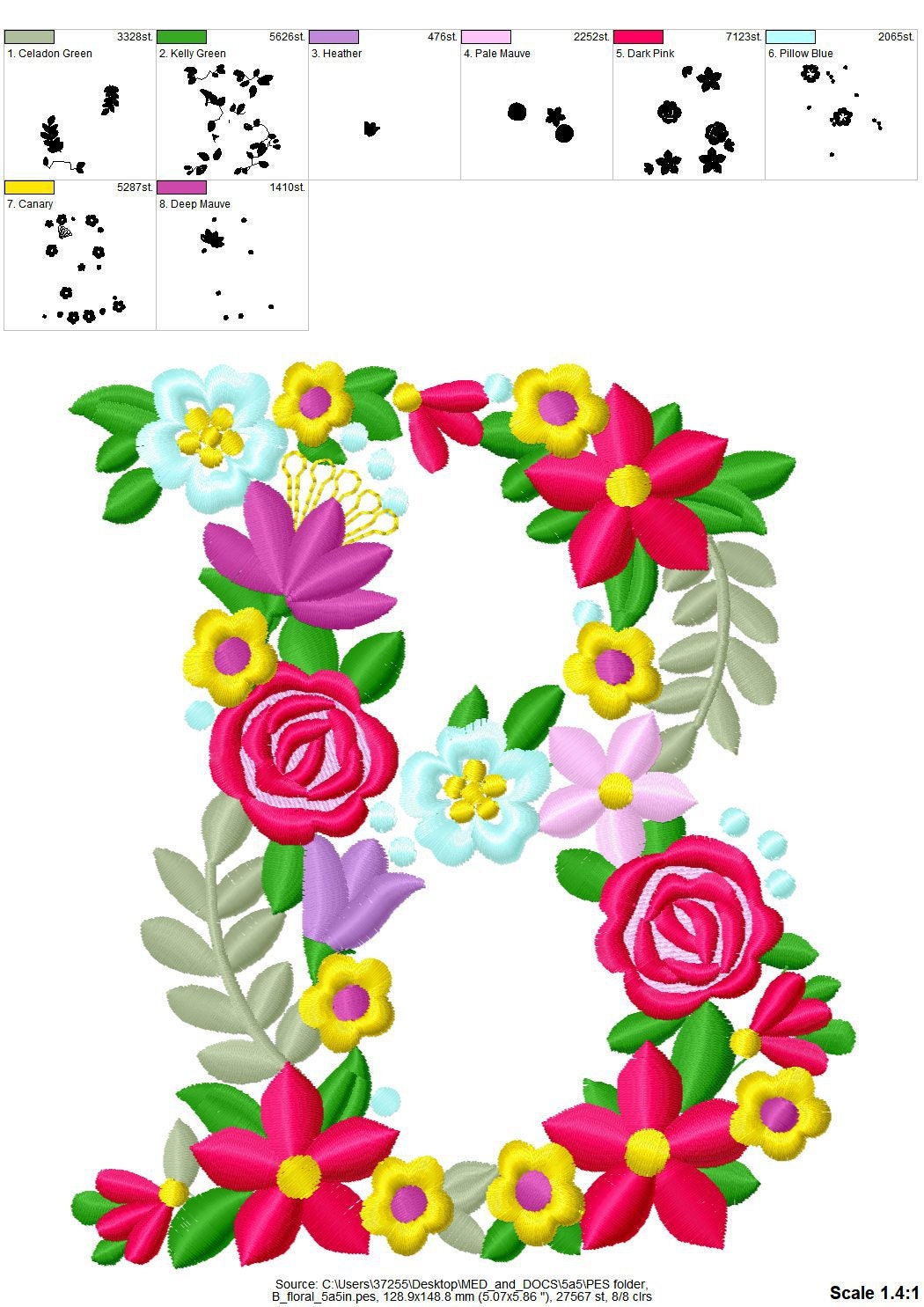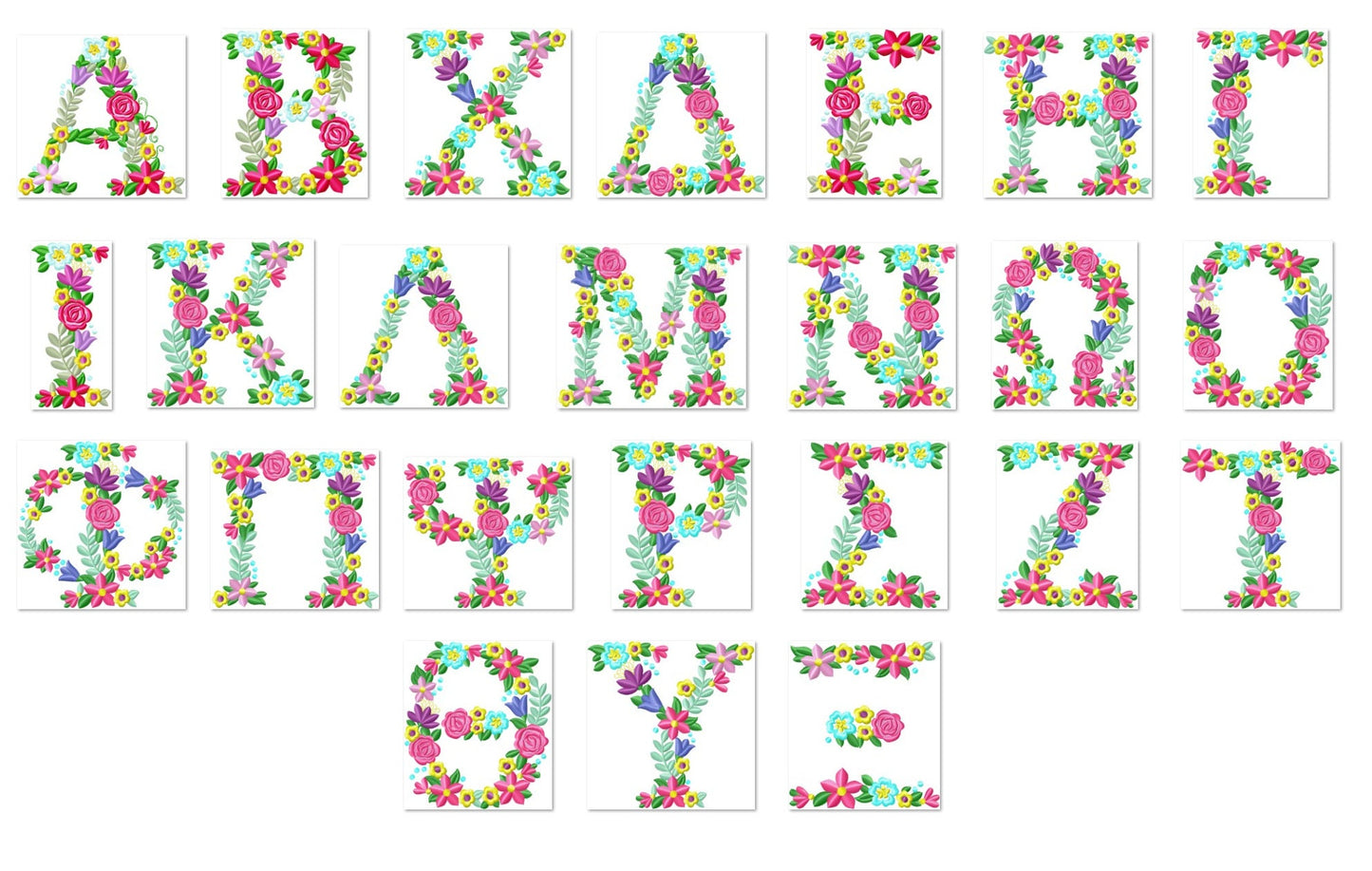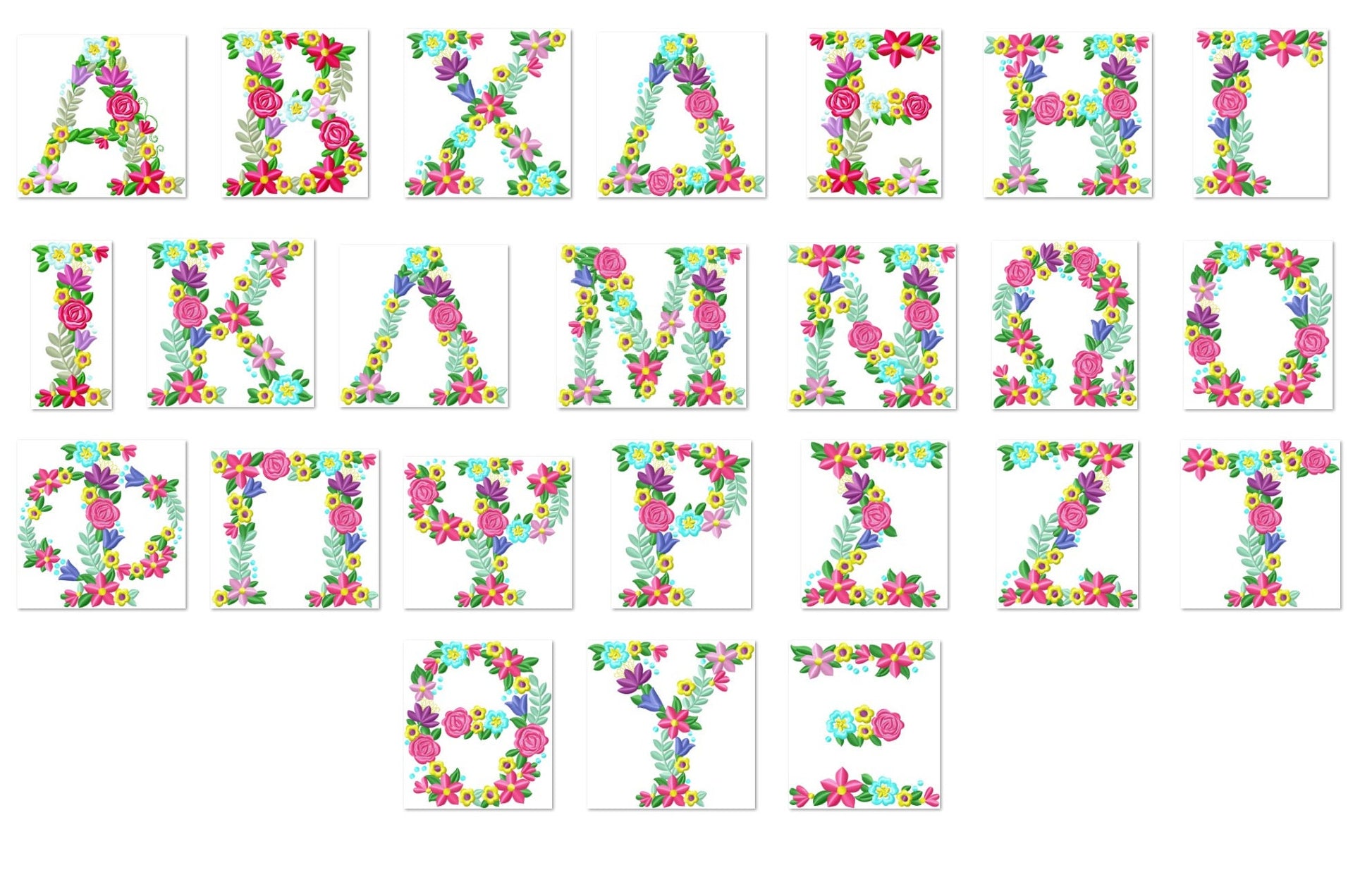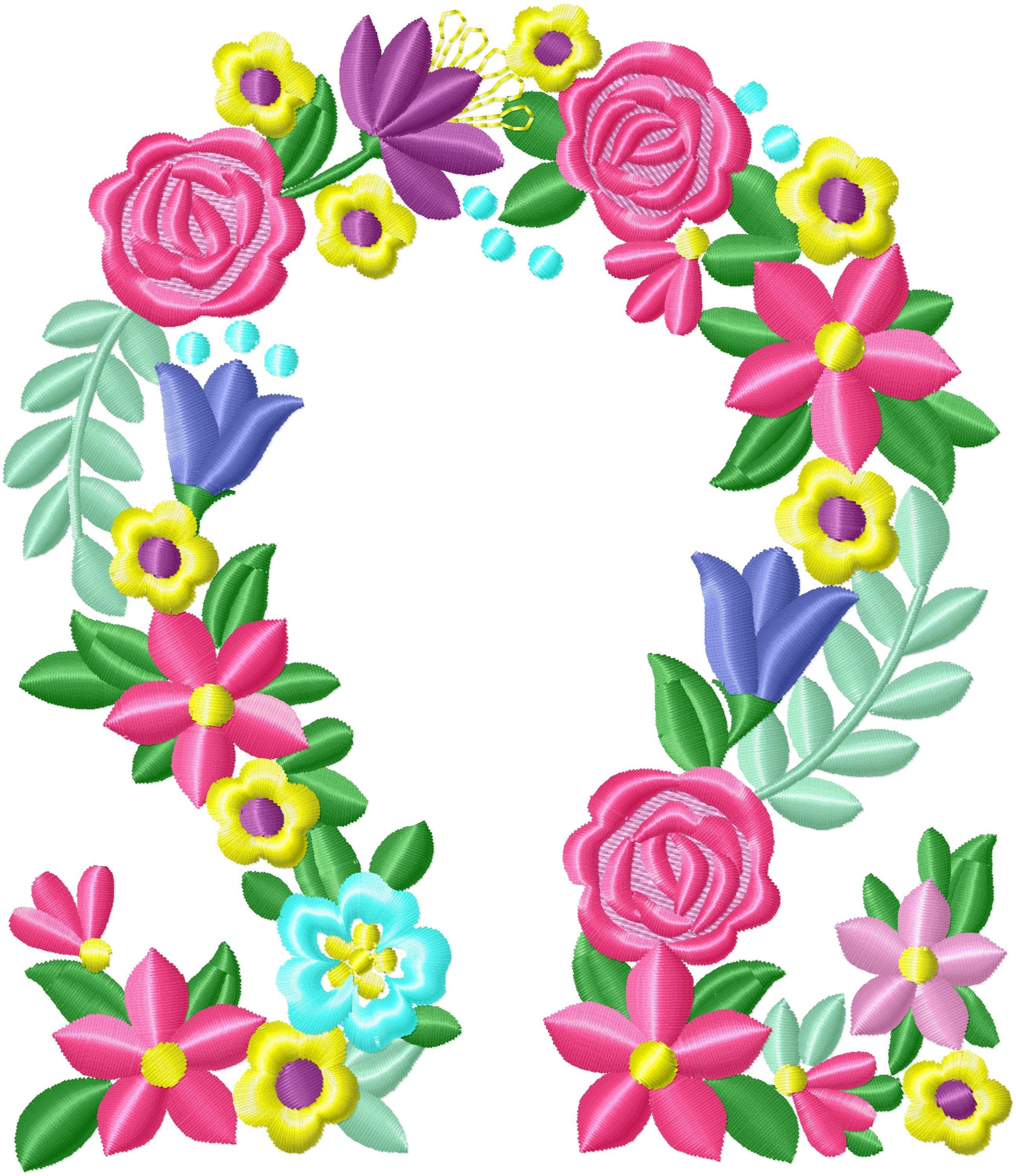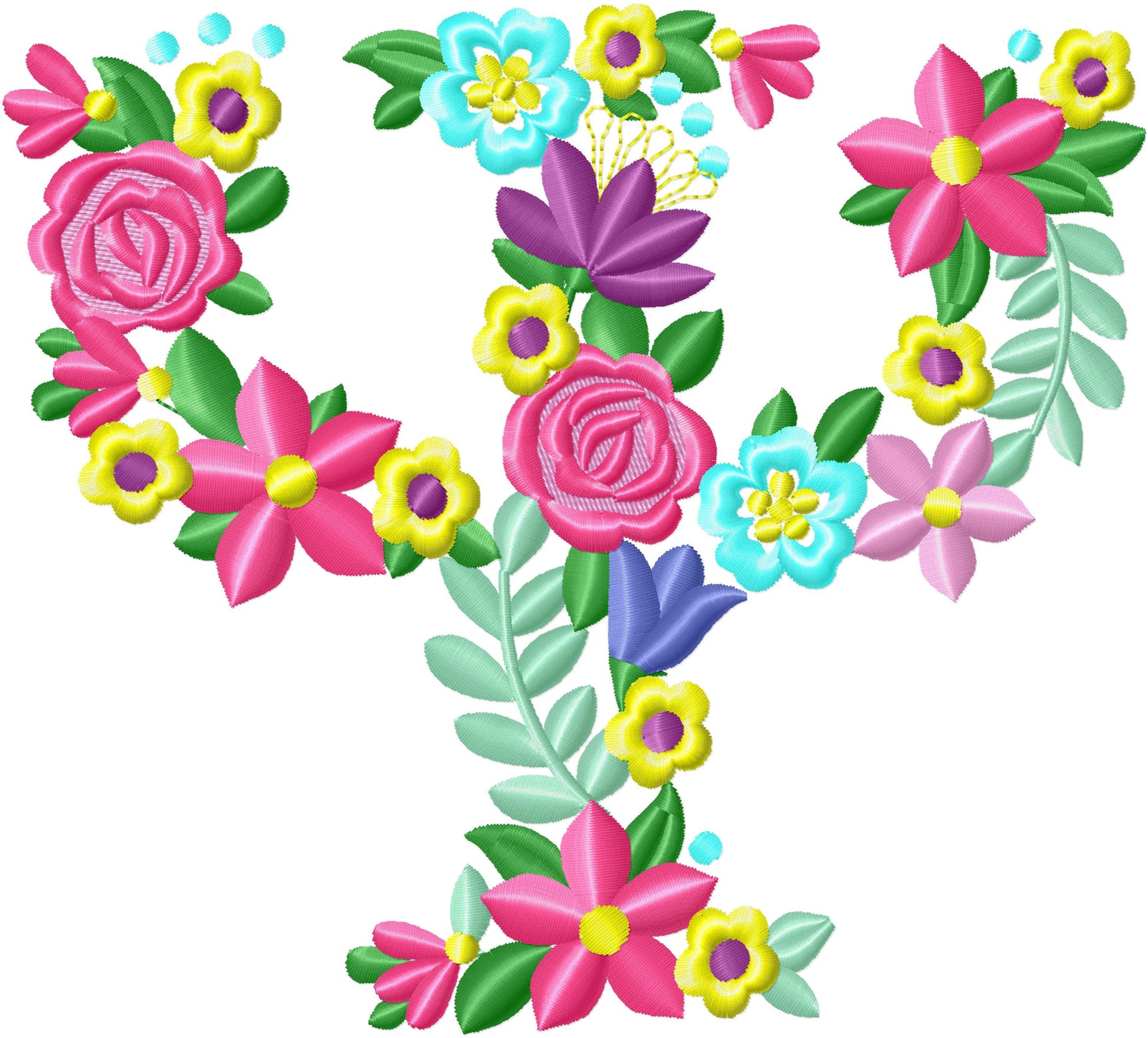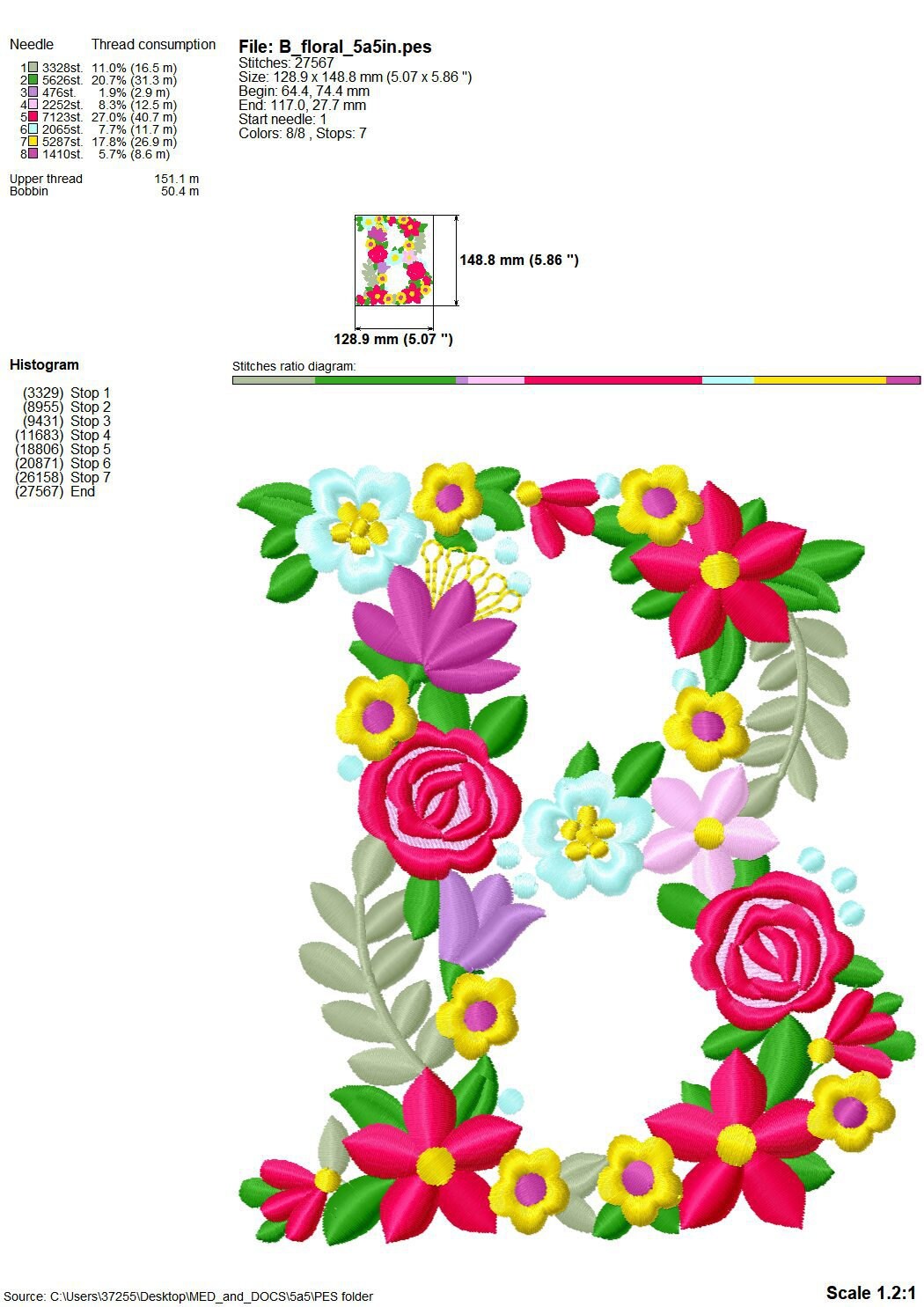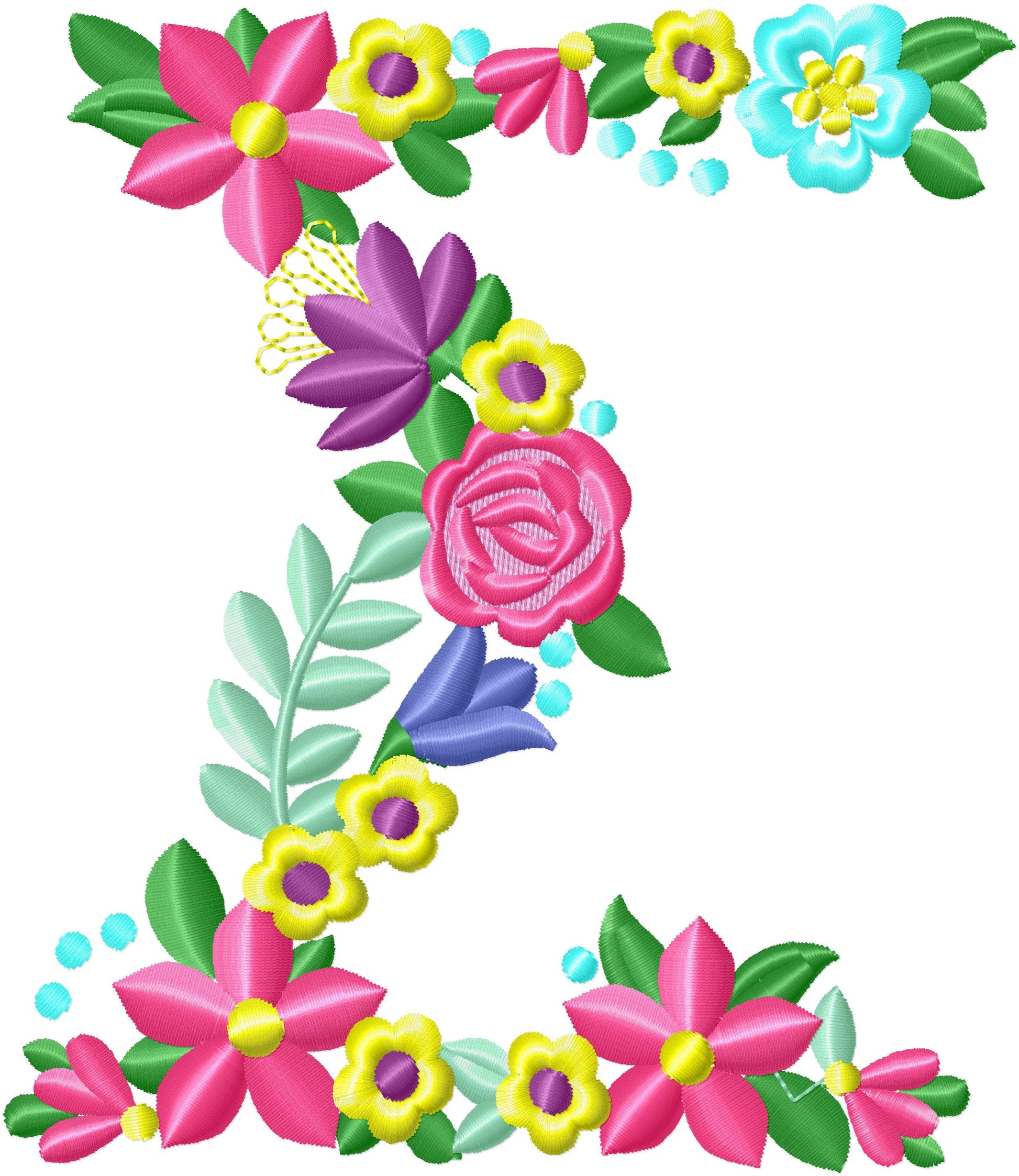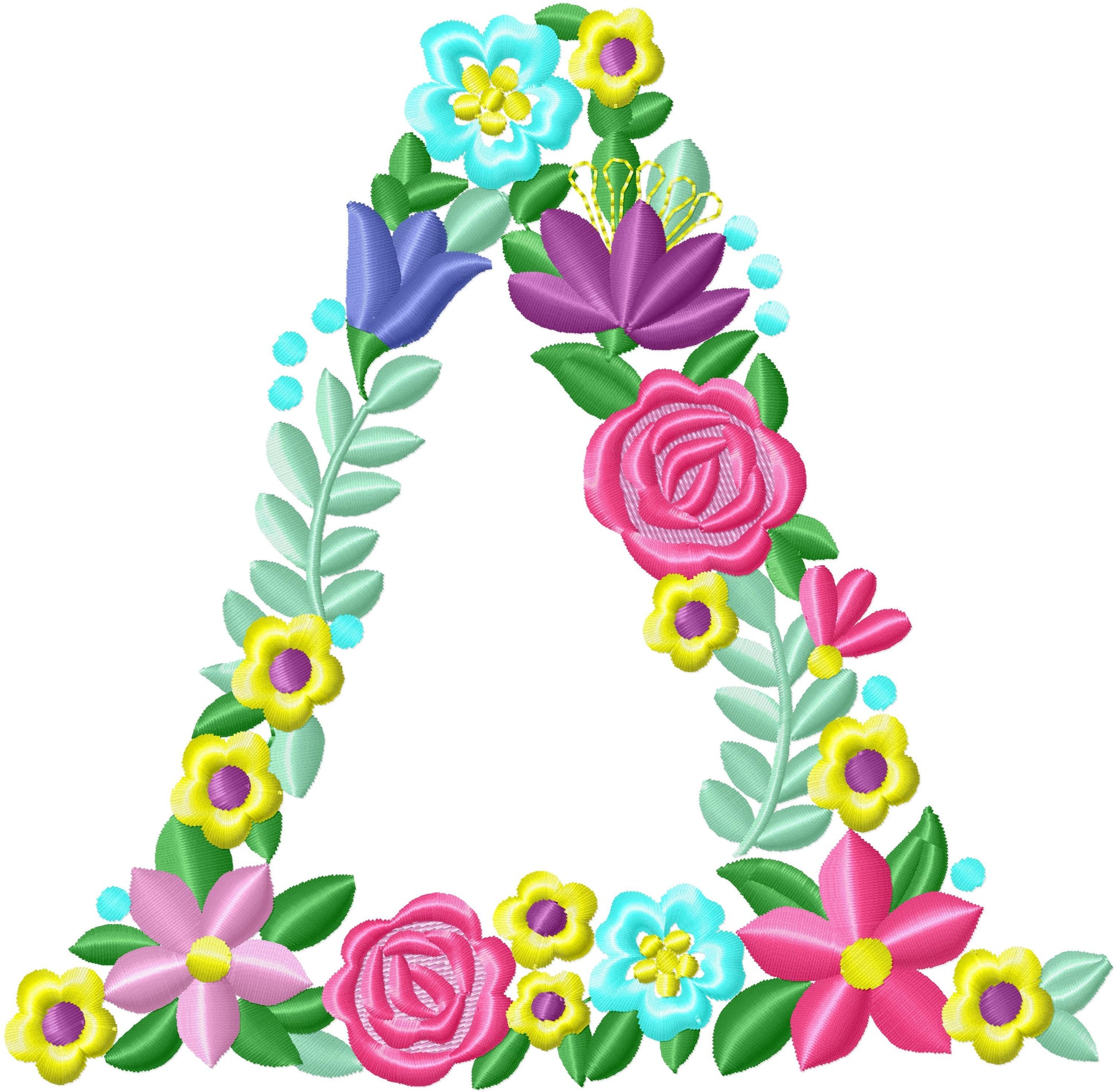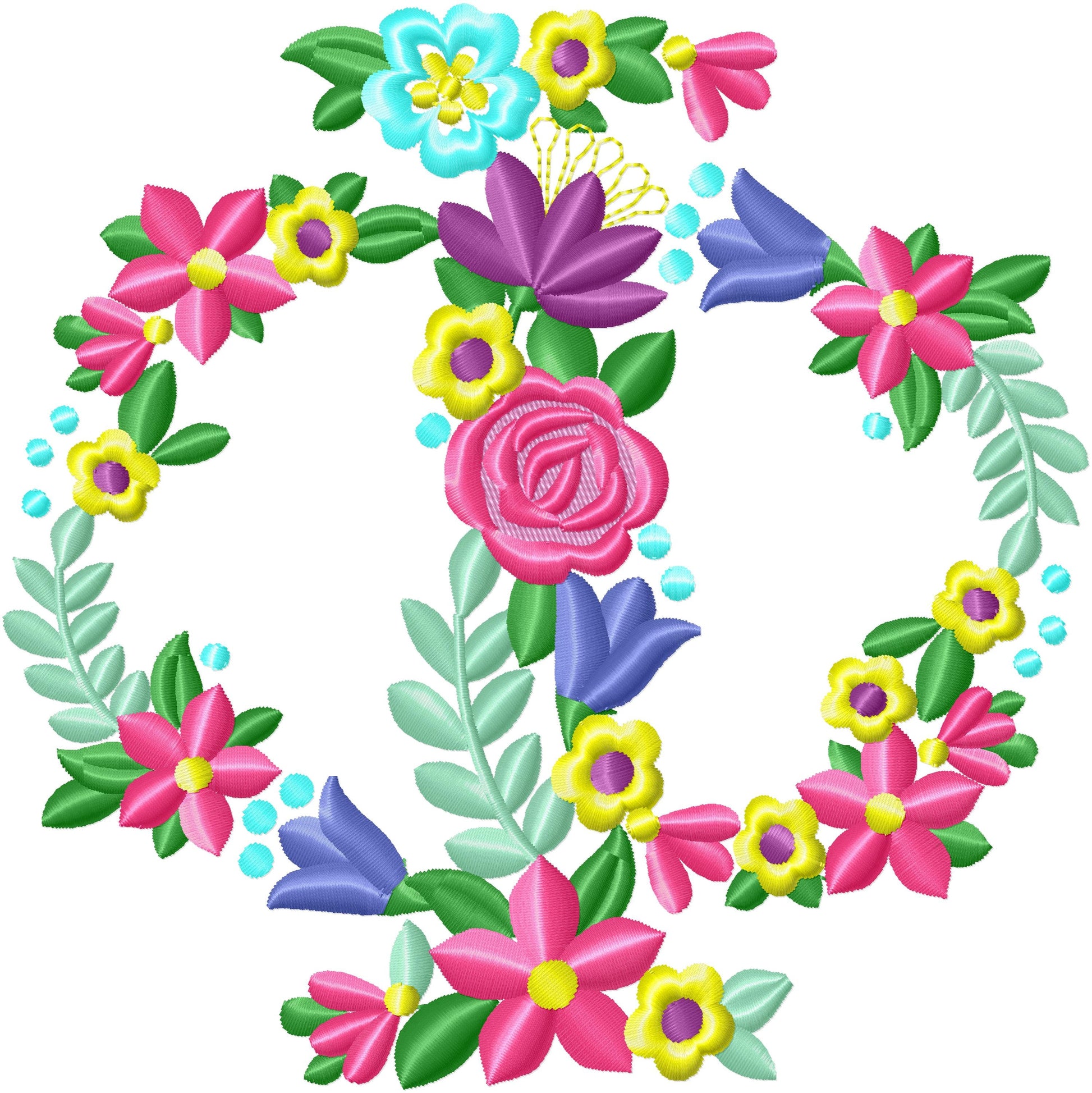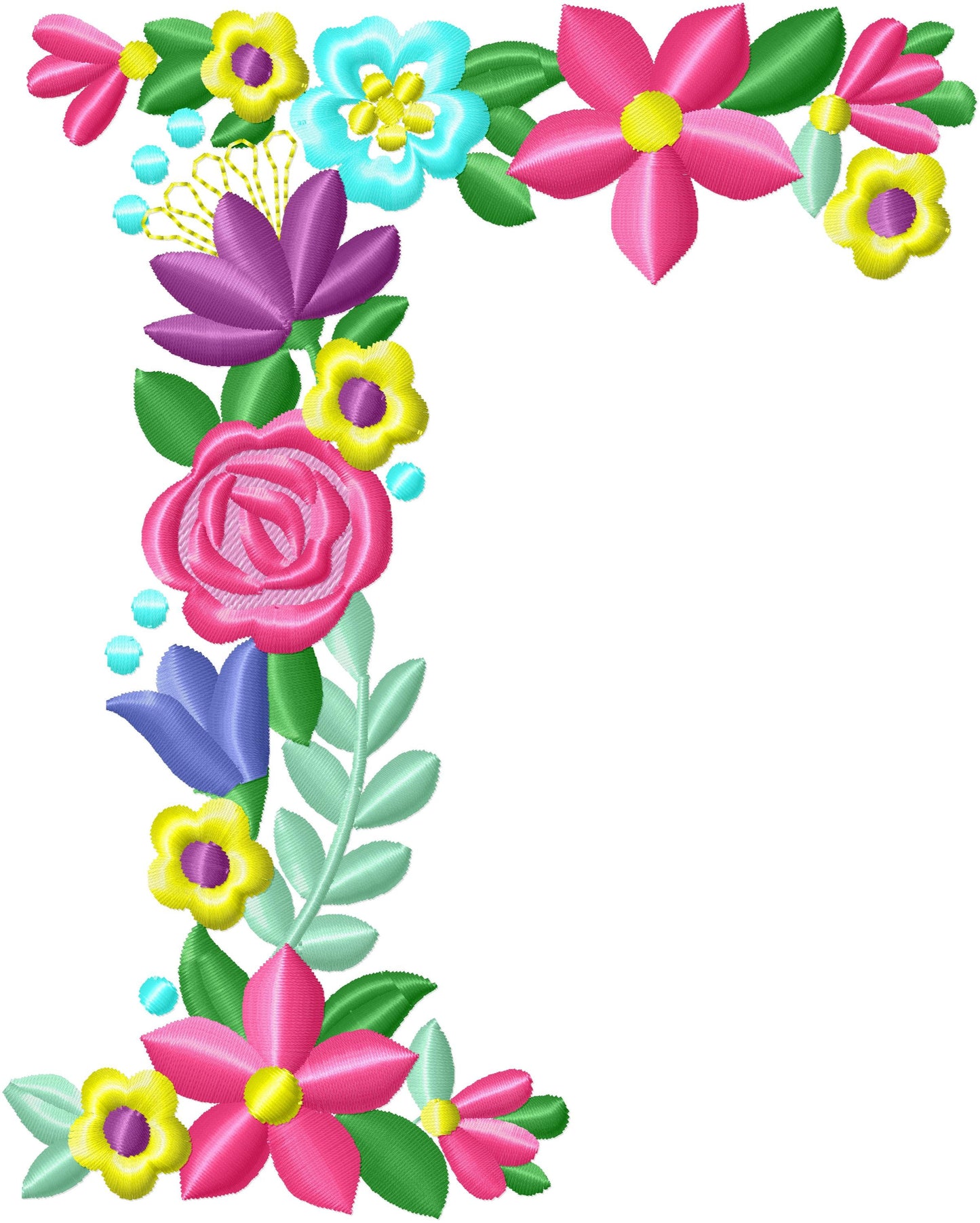
Fraternities Sororities Floral Greek Font
A floral Greek alphabet filled with old-fashioned liberty flowers, for sorority and fraternity letters. Beautiful on sweatshirts, pillows, tote bags and gifts.
All 24 Greek letters, each filled with flowers, with only 8 color changes. Letters come in seven sizes: 3.5, 4, 4.5, 5, 5.5, 6 and 7 inches.
• Whole Greek alphabet, 24 floral letters